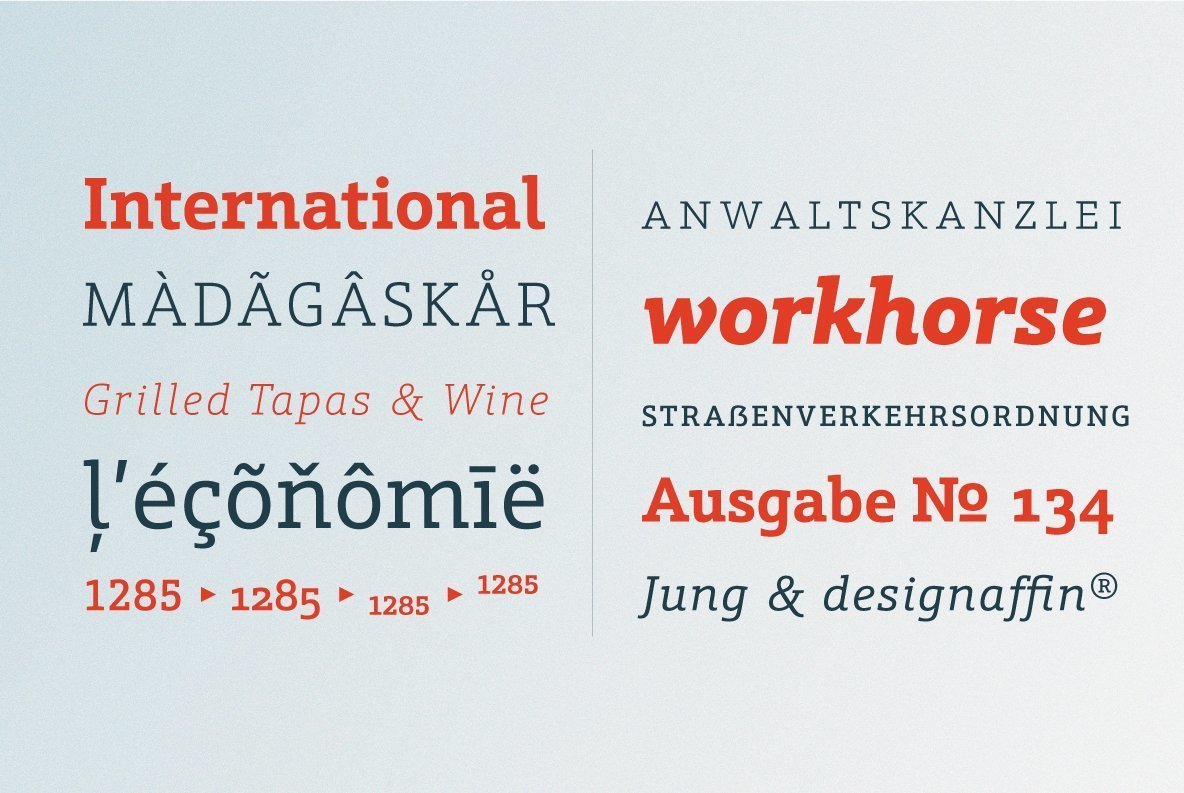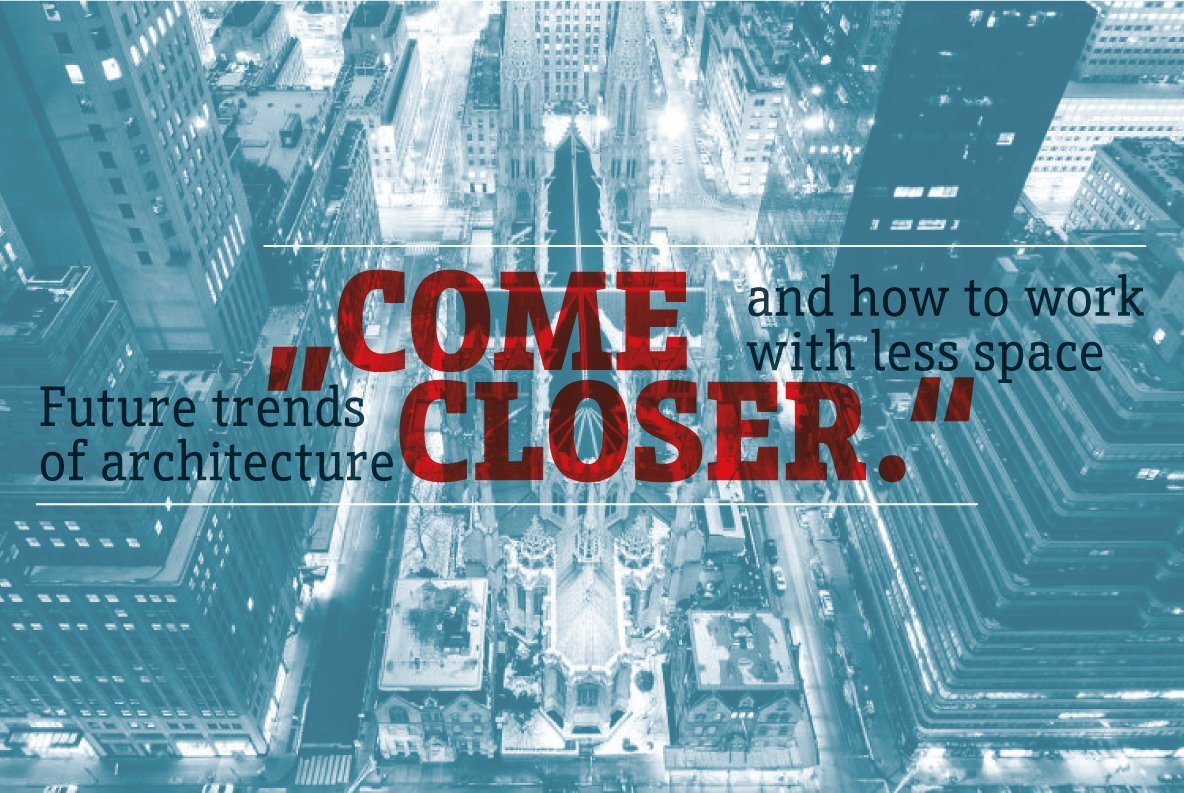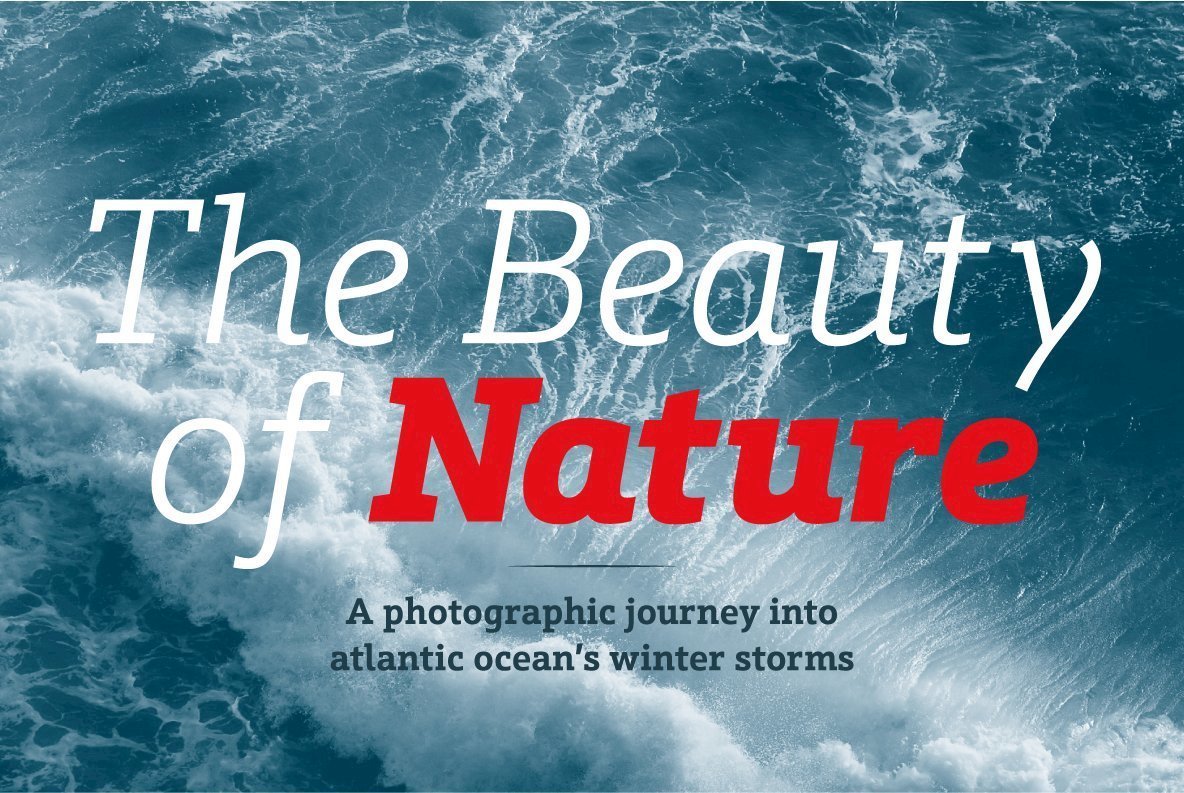
Schnebel Slab Font Family
Schnebel Slab is a refreshingly clear and strong interpretation of a contemporary Antiqua with subtle contrast and firm serifs, which offer excellent readability at very small size, and, at the same time, provide a lot of expression for use in headlines.
The italics, drawn specifically for this purpose, contribute to a harmonious picture, which never loses creative tension, thanks to its aesthetics.
The careful addition of ligatures, small caps, and proportional and old-style figures allows for well-proportioned typesetting. The condensed and expanded variants, which also come in 6 weights each, offer plenty of freedom to design with numerous combinations.